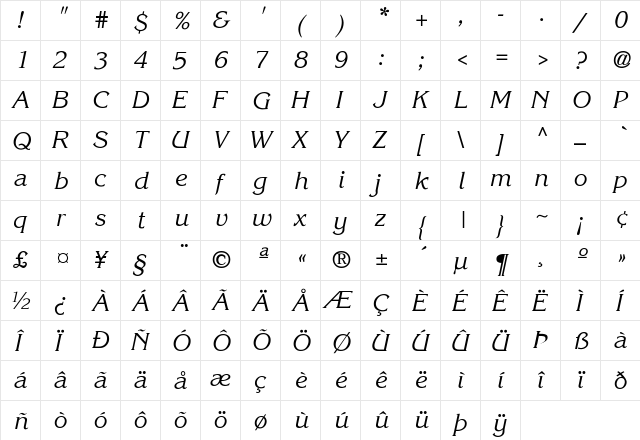
Korinna-KursivRegular Regular
Design Context for Korinna-KursivRegular Typeface
Korinna-KursivRegular is a composed and adaptable typeface that performs quietly and consistently across a wide range of design contexts. The slanted form adds forward momentum and visual energy.